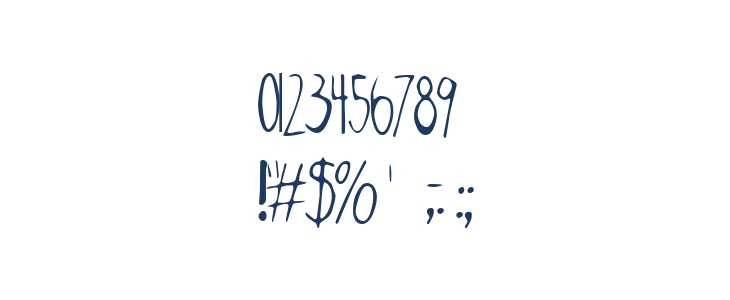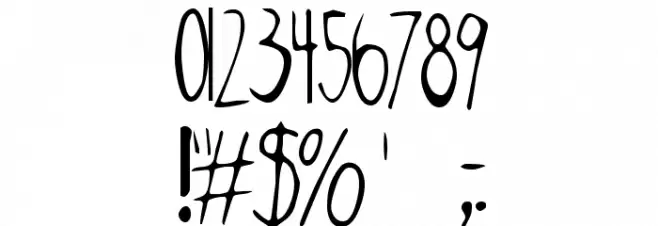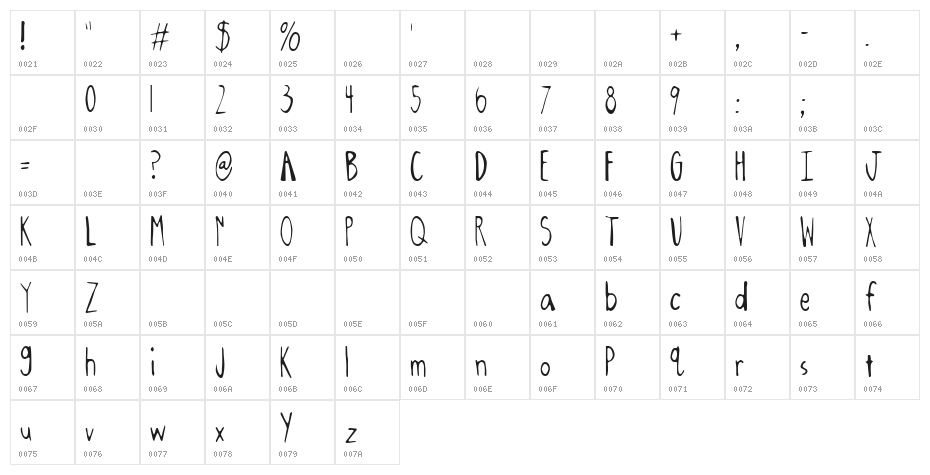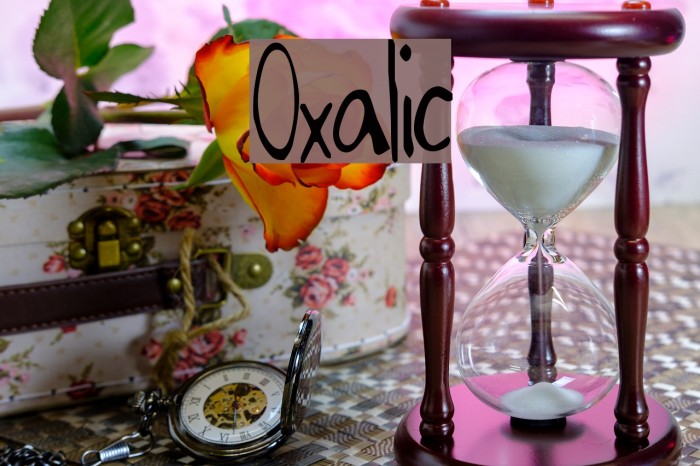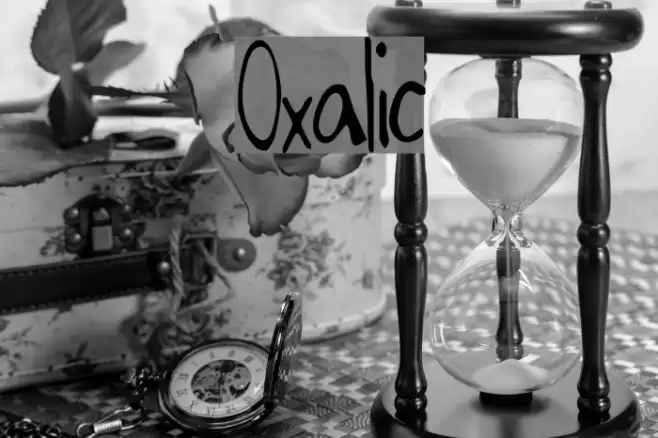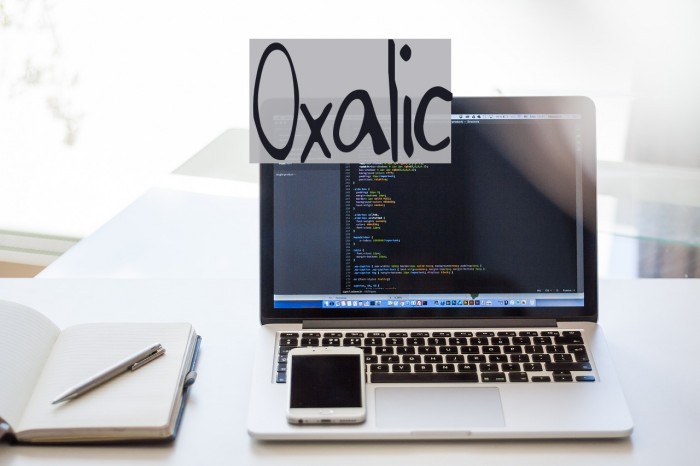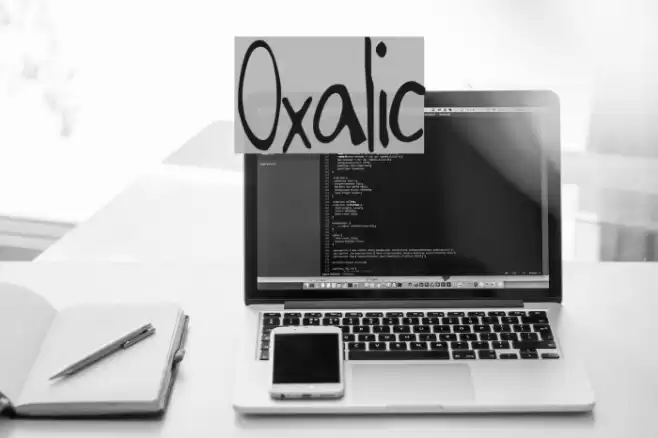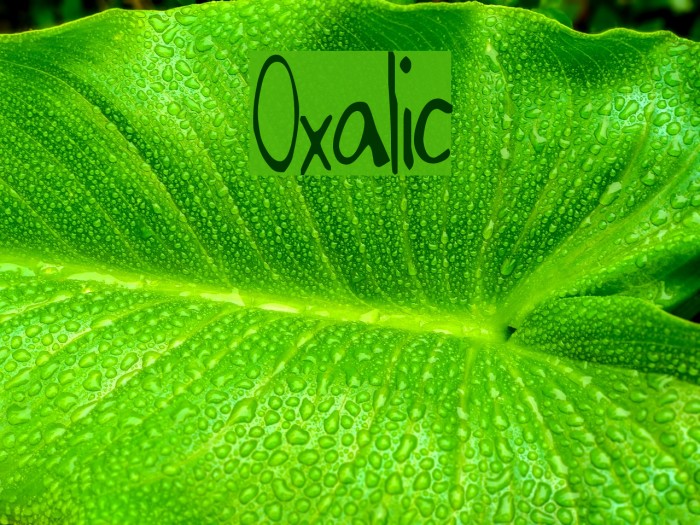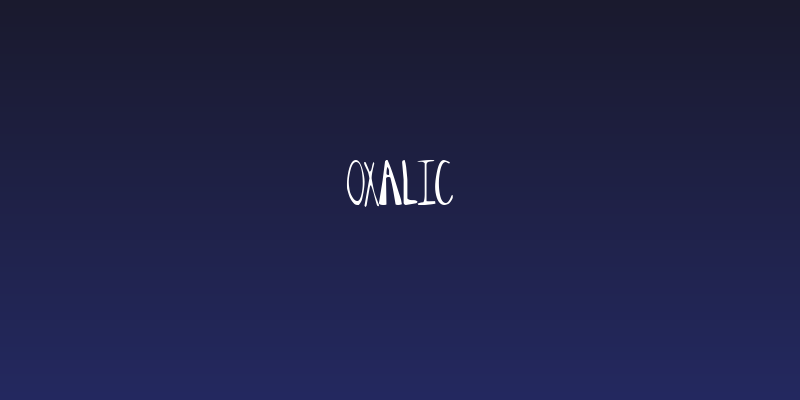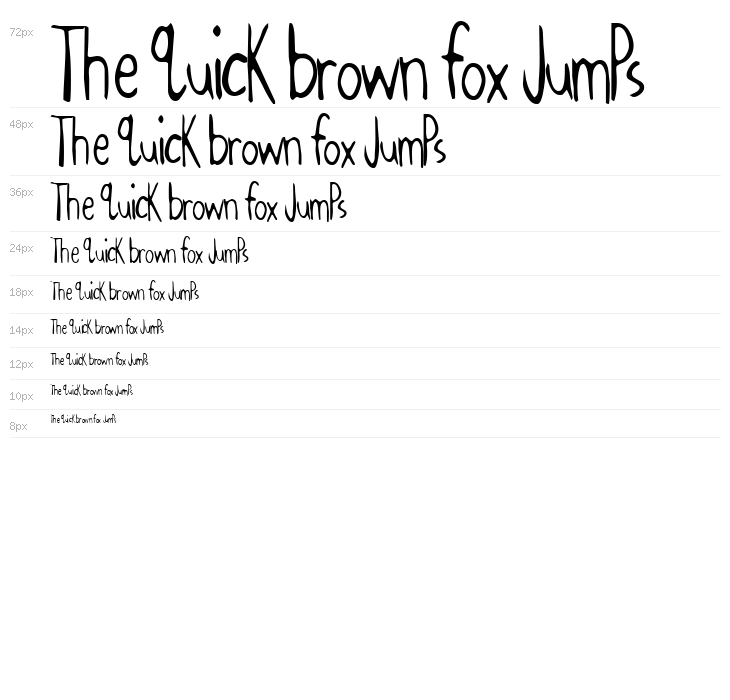
Oxalic Font
Oxalic Description
This font features a playful and whimsical design, characterized by its irregular and hand-drawn appearance. The uppercase letters are tall and slightly narrow, with varying stroke widths that add a dynamic feel. The lowercase letters maintain a similar quirky style, with some characters like 'g' and 'y' having unique, elongated descenders. Numbers and special characters follow the same playful aesthetic, making the font suitable for creative and informal applications. The overall look is casual and artistic, perfect for projects that require a touch of personality and fun.
| Proposed Projects | Ideal for children's books, creative posters, greeting cards, and playful branding. |